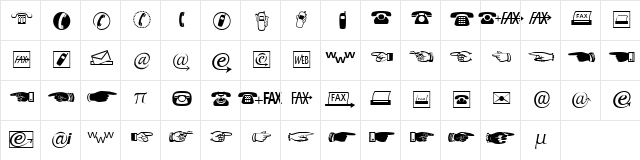
ZapfEssentials LT Communication Regular
| Designer | Hermann Zapf |
Design Context for ZapfEssentials LT Communication Typeface
ZapfEssentials LT Communication is a composed and adaptable typeface that performs quietly and consistently across a wide range of design contexts. Its slender proportions lend an understated elegance to any composition.
Pro Tip: Use ZapfEssentials LT Communication in both headline and body roles to test its range before committing to a single application.